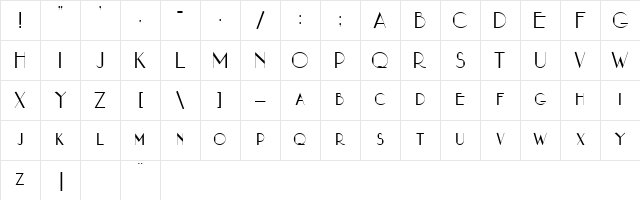
Ibex Normal Free Font
Ibex Normal
Design Context for Ibex
Ibex is a composed and adaptable typeface that performs quietly and consistently across a wide range of design contexts.